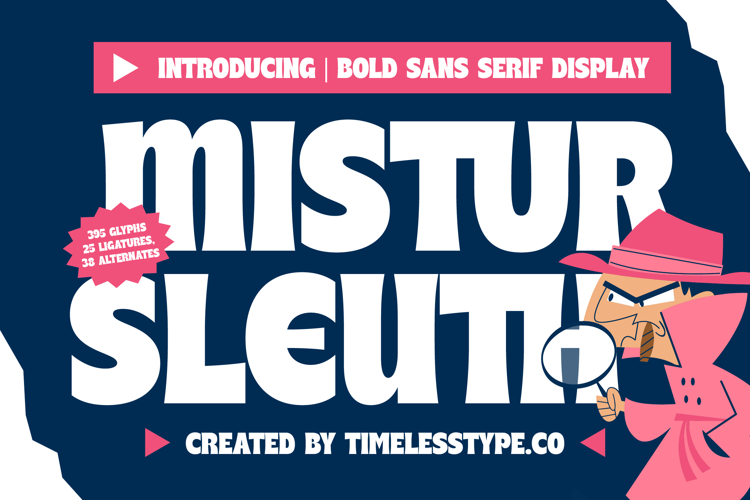
Mistur Sleuth - Bold Sans Serif Display
Mistur Sleuti is a bold sans serif display font that combines playful energy with strong geometric design. Its thick strokes, quirky letterforms, and bold curves make it perfect for projects that need to be both fun and attention-grabbing. With 395 glyphs, 25 ligatures, and 38 alternates, Mistur Sleuti provides plenty of creative versatility, allowing designers to craft unique and expressive layouts that stand out across any medium.
This font shines in headline typography, where its bold, cartoonish style instantly captures attention on posters, banners, and editorial layouts. In branding and logo design, Mistur Sleuti communicates energy and creativity, making it an excellent choice for children’s products, comics, gaming, or lifestyle brands that want to project fun and originality. Its strong and dynamic look also makes it perfect for packaging design, especially for snacks, toys, drinks, and novelty items where typography plays a key role in visual appeal.
Mistur Sleuti thrives in advertising campaigns, event promotions, and social media graphics, where its alternates and ligatures add individuality and variety. For editorial spreads, merchandise, and lifestyle projects, the font brings a bold personality that transforms typography into a central design feature.
With multilingual support, Mistur Sleuti is well-suited for global projects, making it versatile for international branding and publishing.
Ultimately, Mistur Sleuti is more than just a display font—it is a creative tool for bold, playful, and energetic storytelling. Whether used for headlines, branding, packaging, or digital content, it ensures every project bursts with fun, confidence, and unforgettable character.